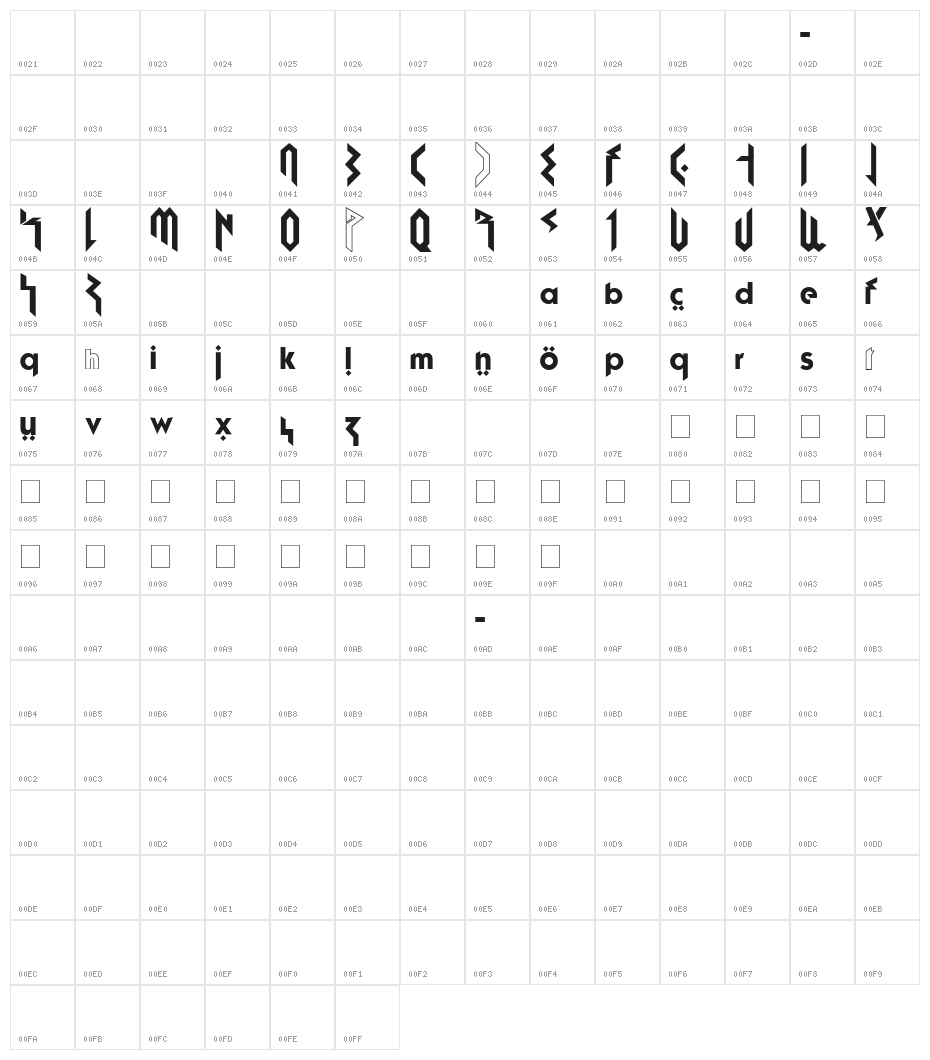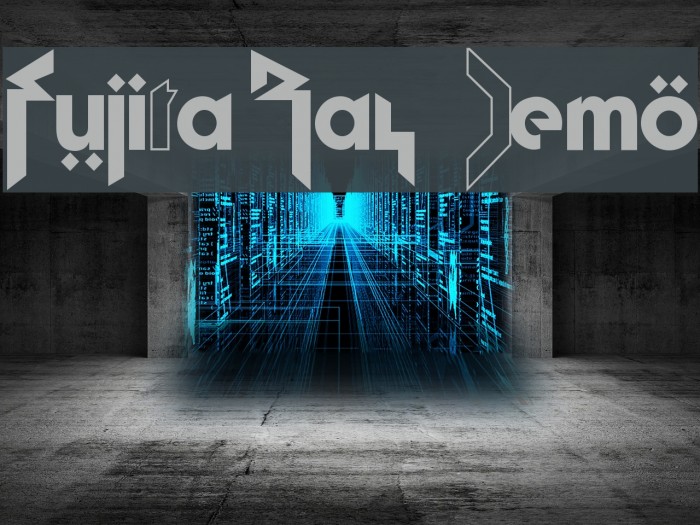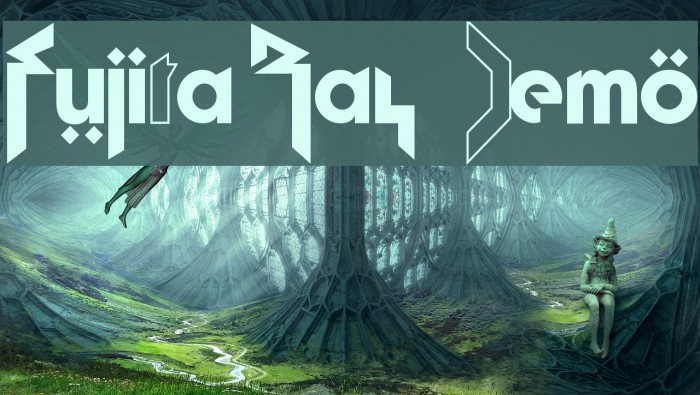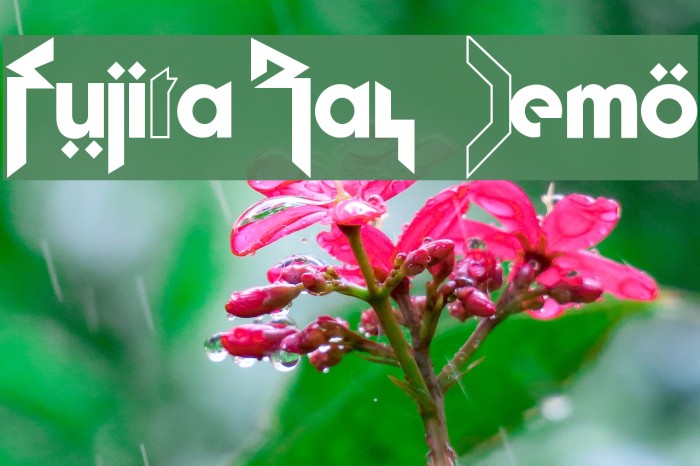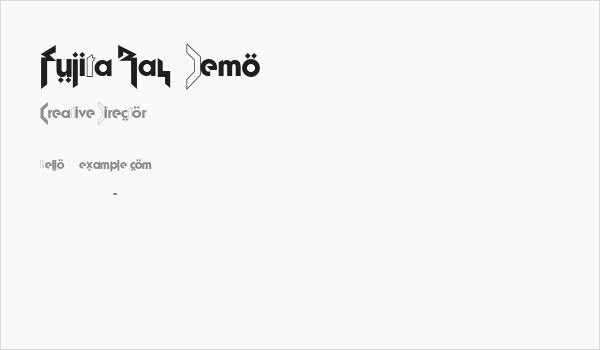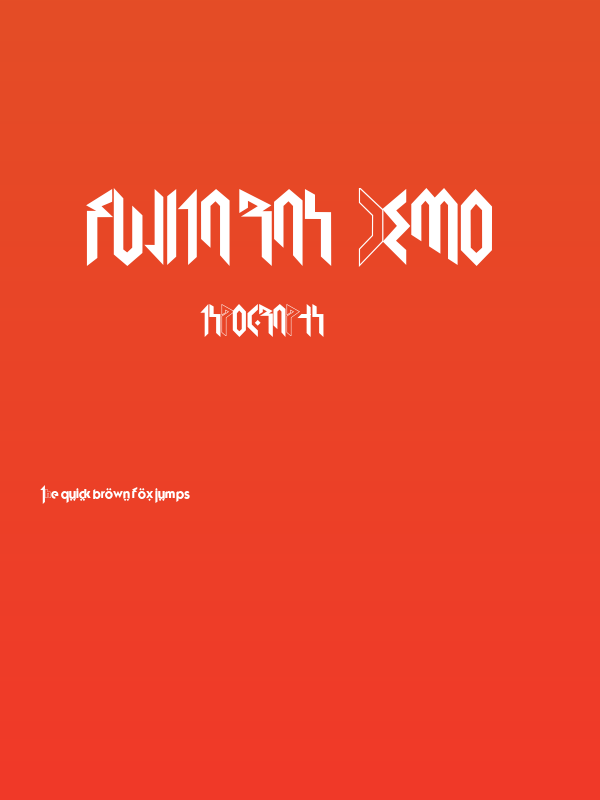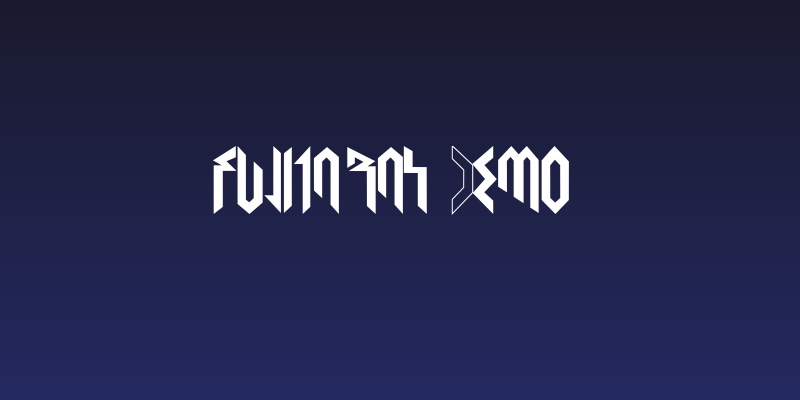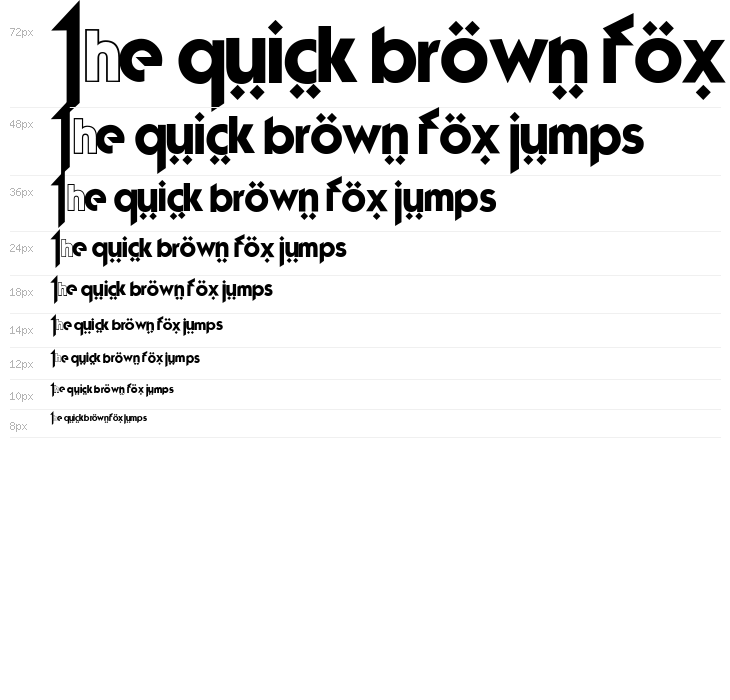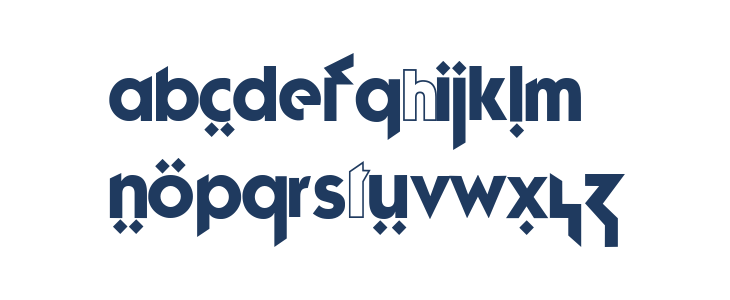
Fujita Ray [Demo] Font
Fujita Ray [Demo] Description
This font features a bold and geometric design with sharp angles and a futuristic aesthetic. The uppercase letters are particularly striking, with intricate shapes that create a sense of movement and energy. The lowercase letters maintain a more rounded and solid appearance, providing a nice contrast to the uppercase. The inclusion of diacritical marks adds versatility for multilingual use. The numbers and special characters are consistent with the overall style, making it suitable for a variety of creative projects.
| Overall Style | Futuristic, Dynamic |
| Use Case | Logos, Posters, Branding |
| Proposed Projects | Ideal for sci-fi themed designs, video game graphics, posters, and branding that requires a modern and edgy look. |